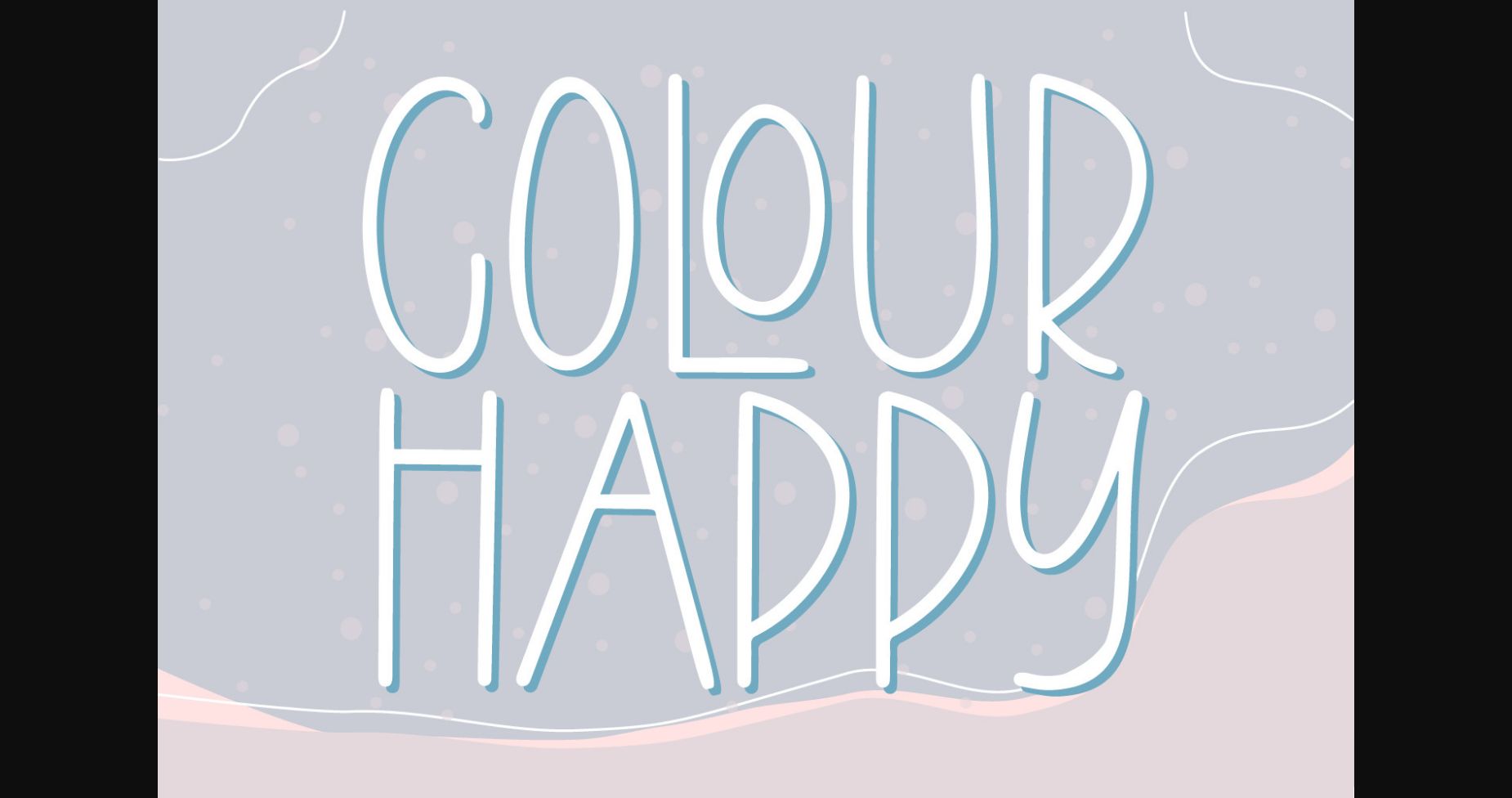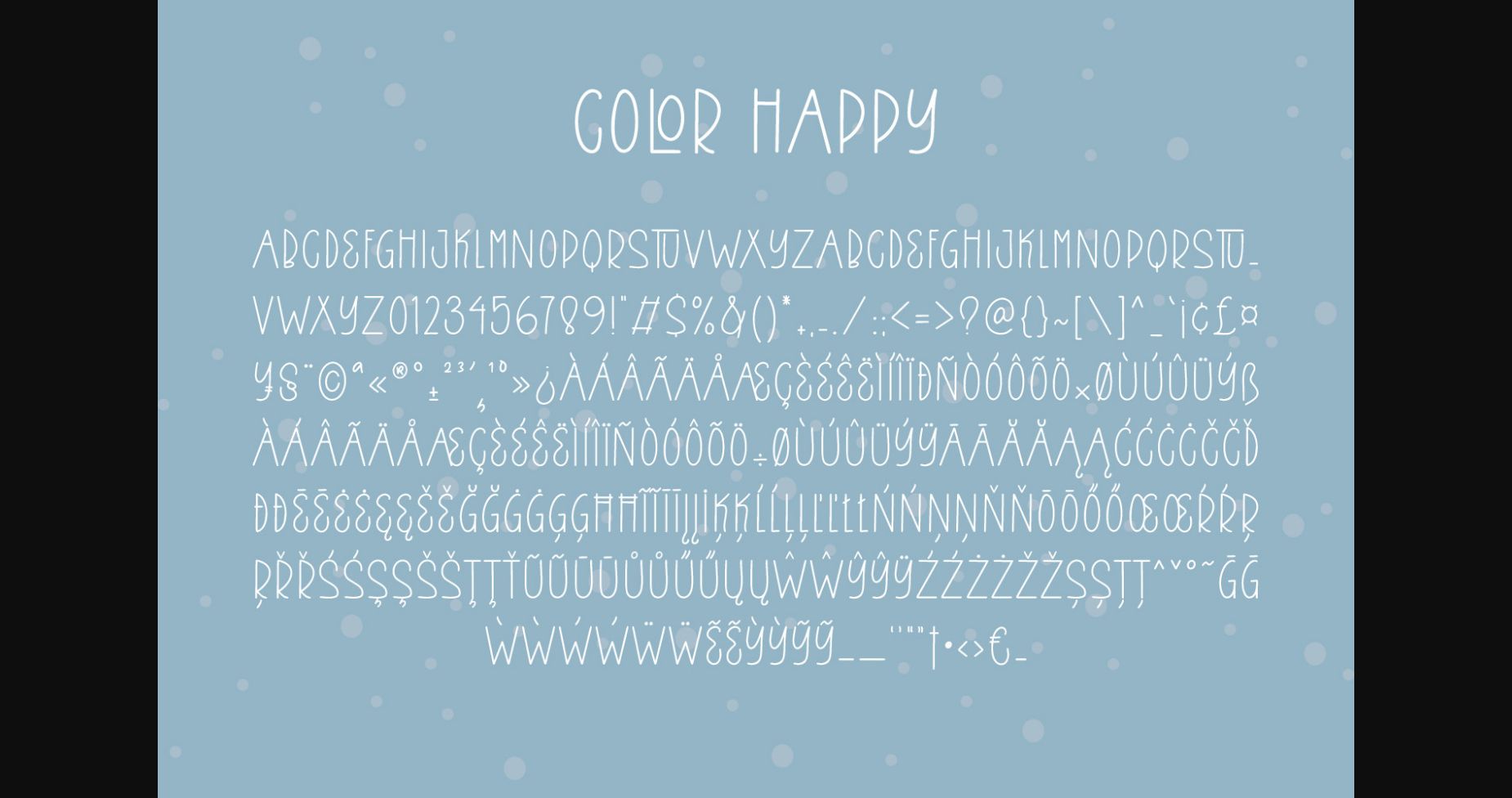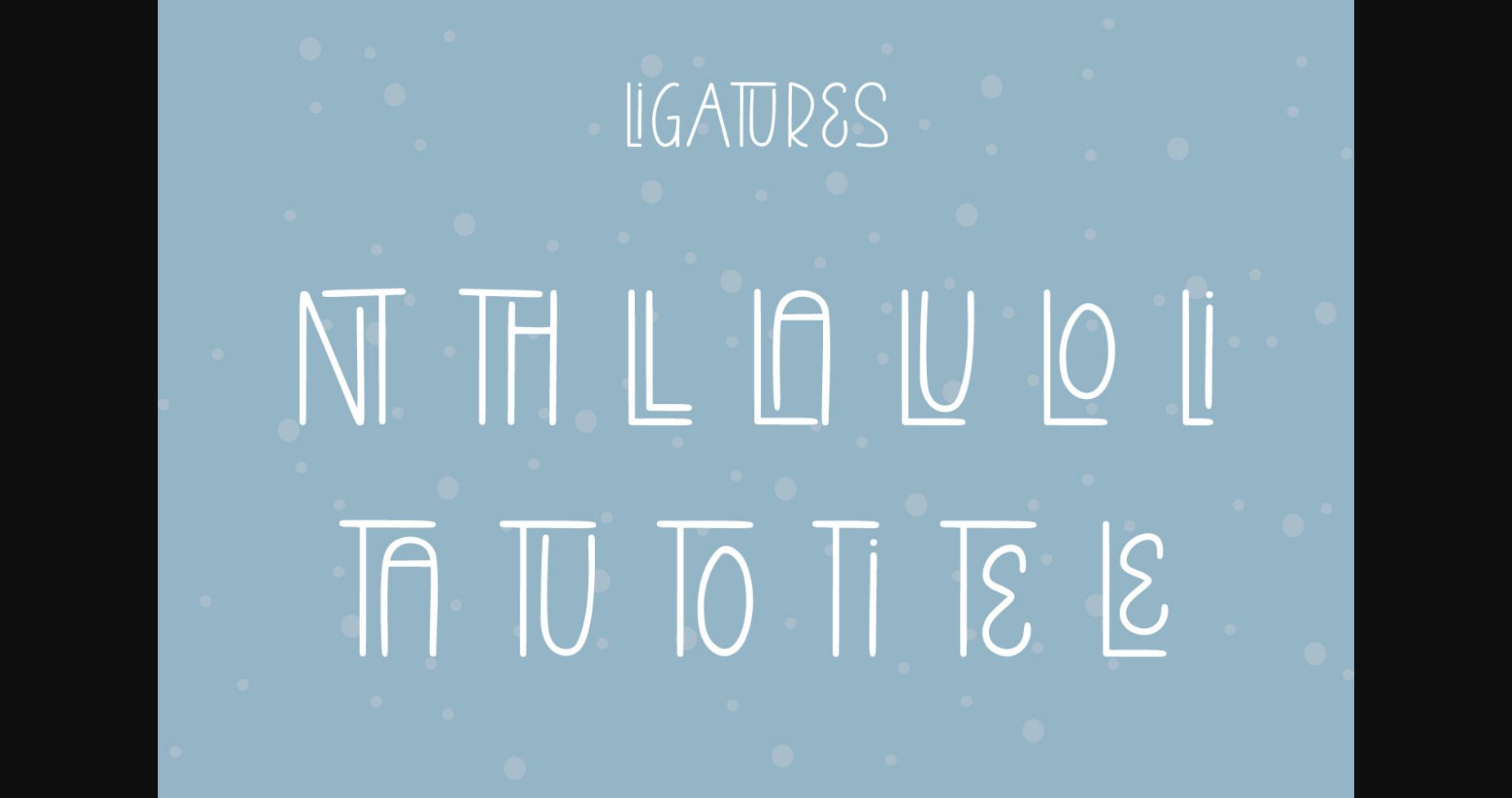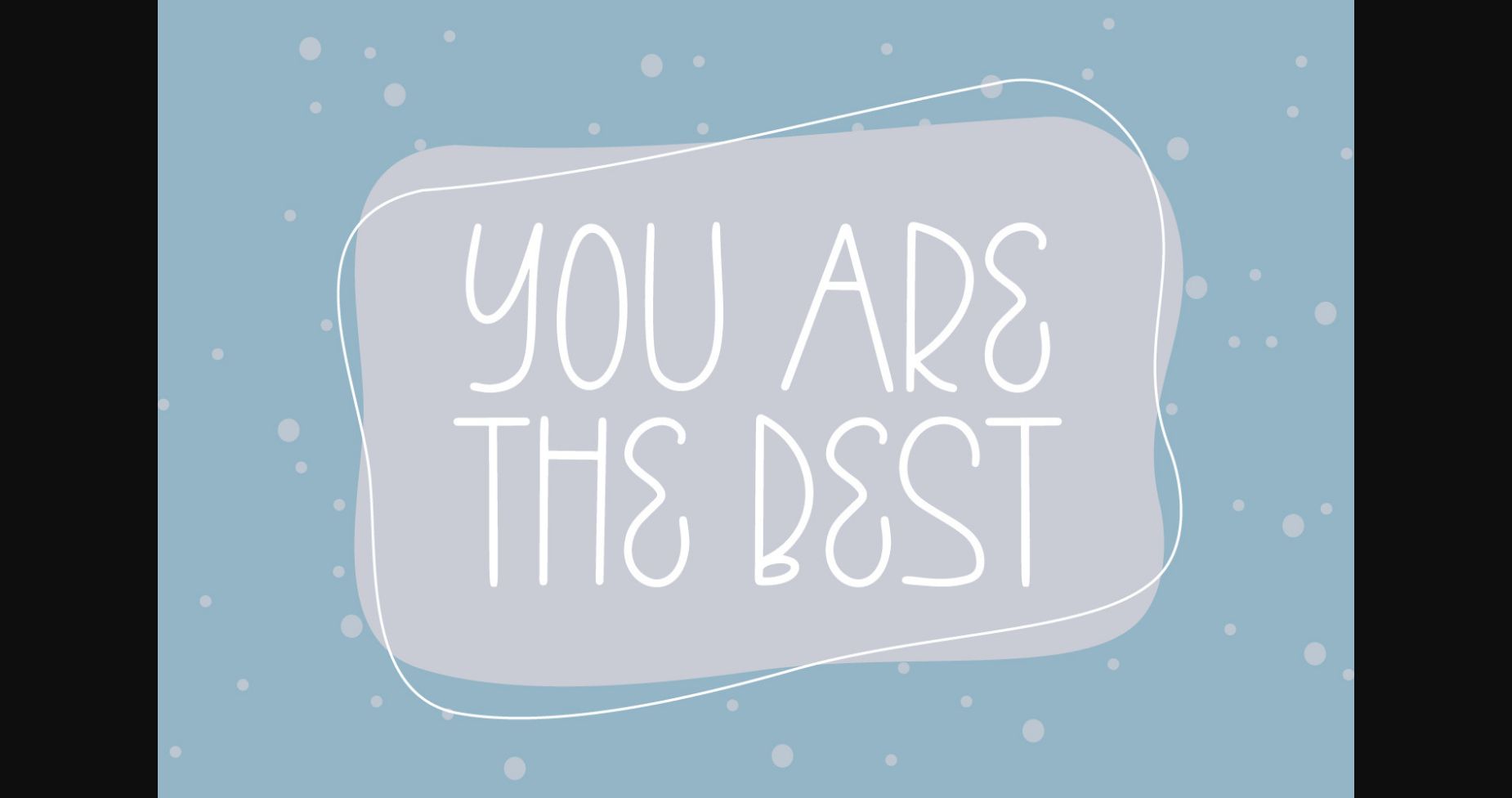
About Colour Happy Font
Colour Happy is a minimal and neat sans serif font. It can easily be matched to an incredibly large set of projects, so add it to your creative ideas and notice how it makes them stand out! Colour Happy is PUA encoded which means you can access all of the amazing glyphs and ligatures with ease!